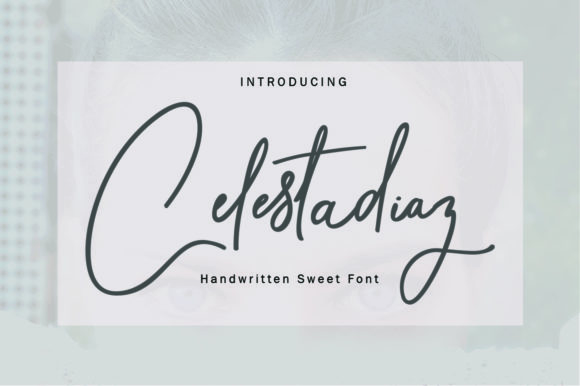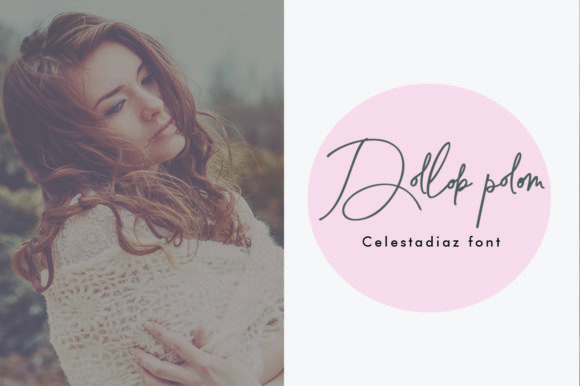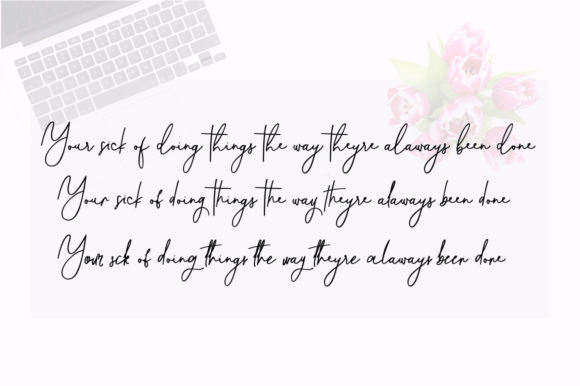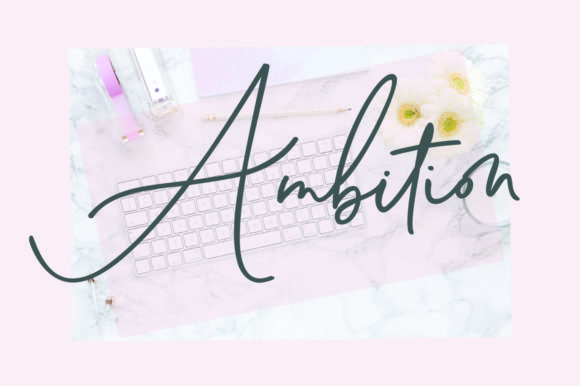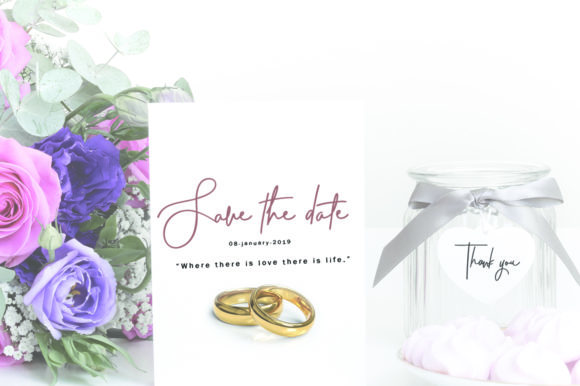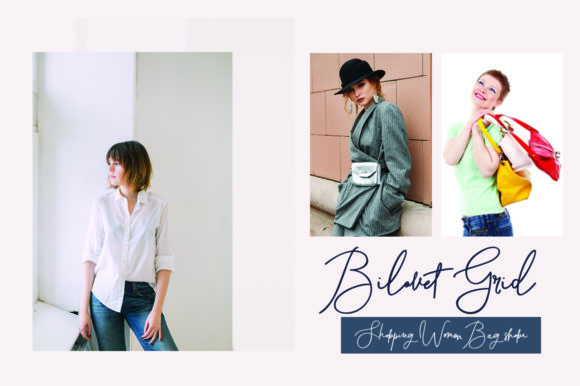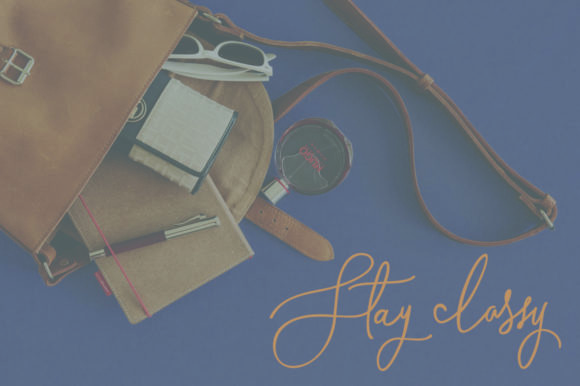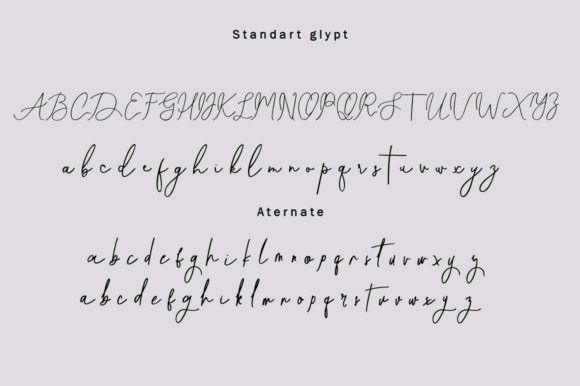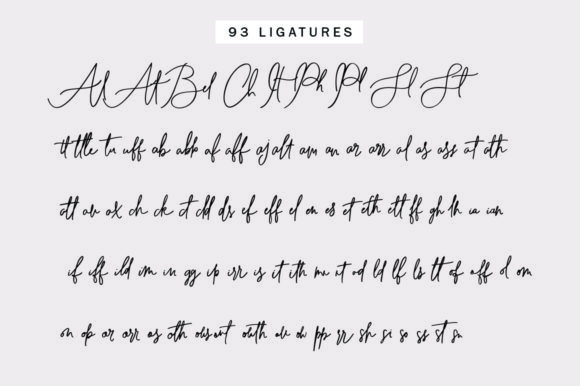
Celestadiaz Font
About Celestadiaz Font
The Celestadiaz is a modern calligraphy font. It has a natural handwritten styles which makes it perfect for adding a personal touch to your designs.